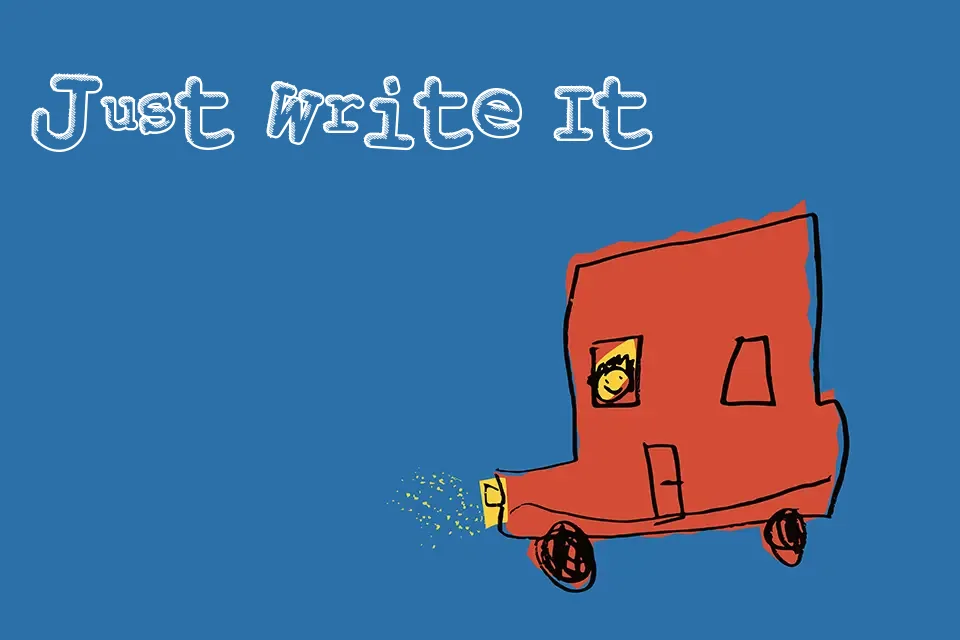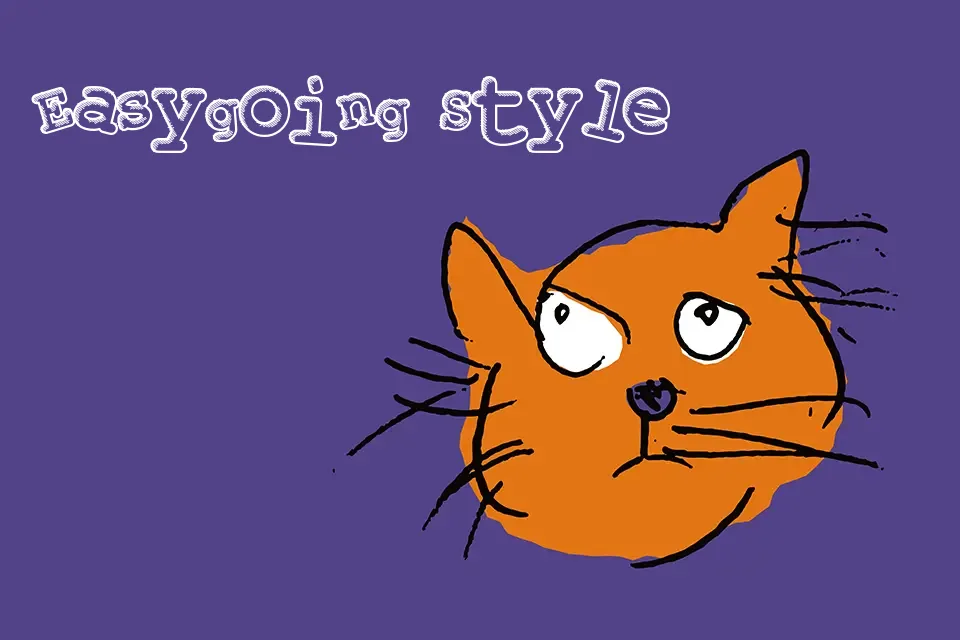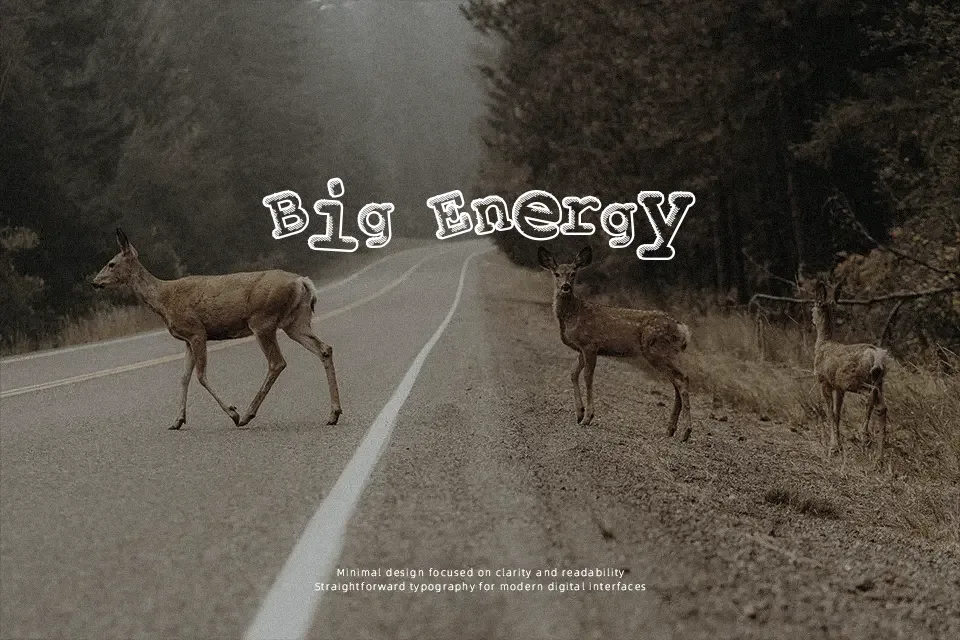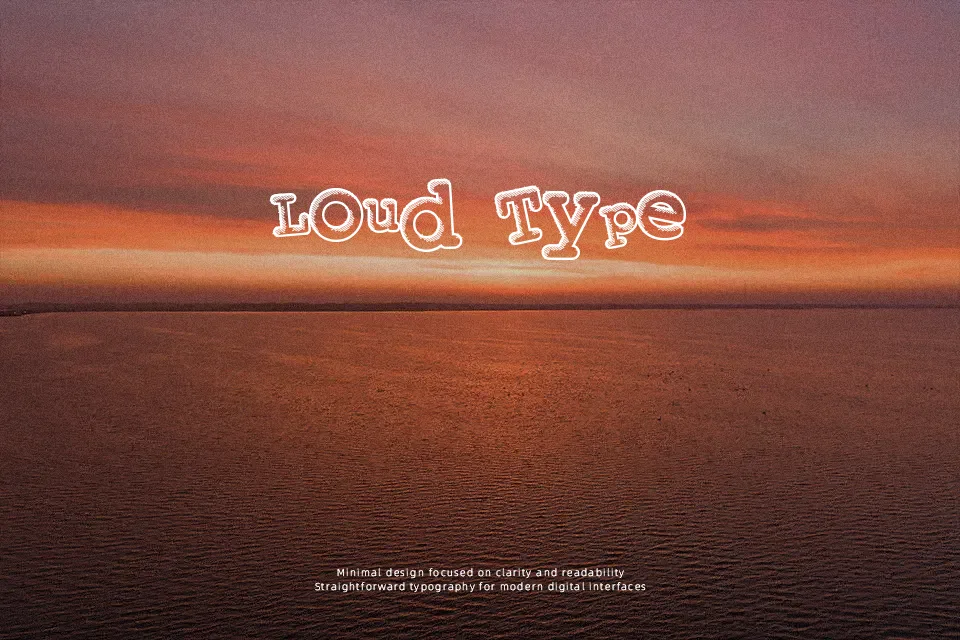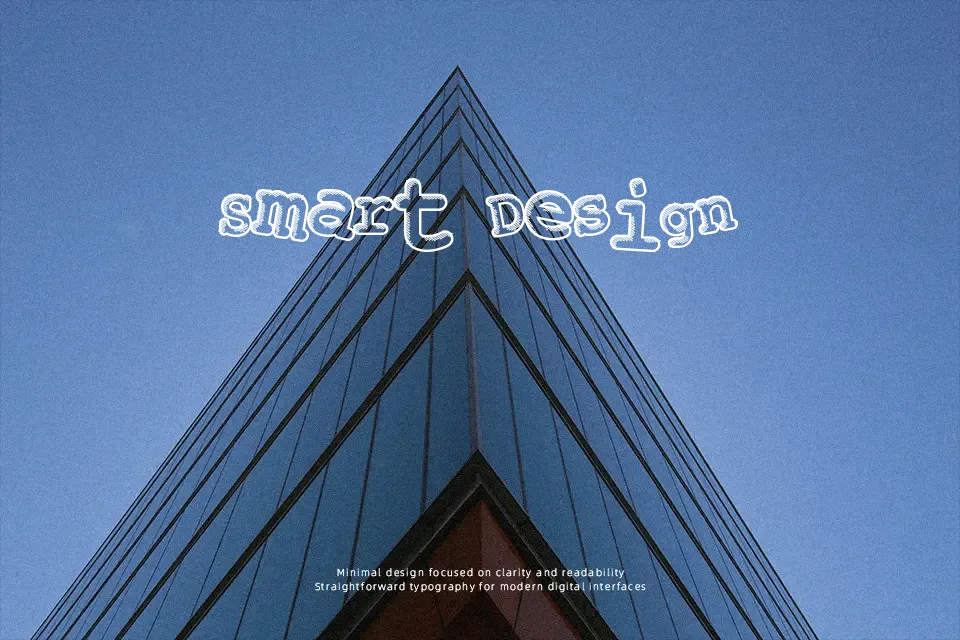
Play Along Font
Play Along Font works best in large, cheerful display settings. Its chunky, rounded strokes, irregular contours, and loosely balanced proportions give uppercase and lowercase characters a hand-drawn cartoon look. The spacing creates an animated rhythm rather than a formal text texture, while the bold forms remain easy to pick out in short words and headlines. Numerals and basic punctuation follow the same casual construction. It suits children’s event posters, toy labels, and game-related graphics. The heavy shapes hold attention well at larger sizes, but their uneven details make dense text and small labels harder to scan comfortably.
Best For: children’s event posters,toy packaging,casual game titles,playful product labels
Not Ideal For: long paragraph text,corporate reports,small interface labels,technical manuals